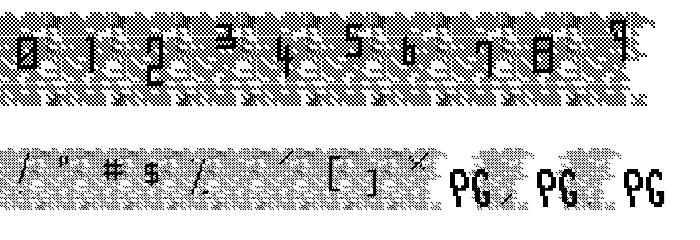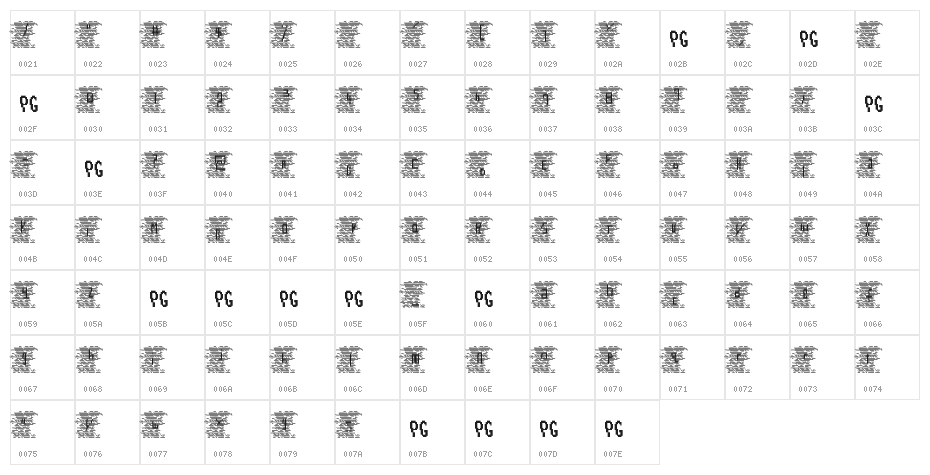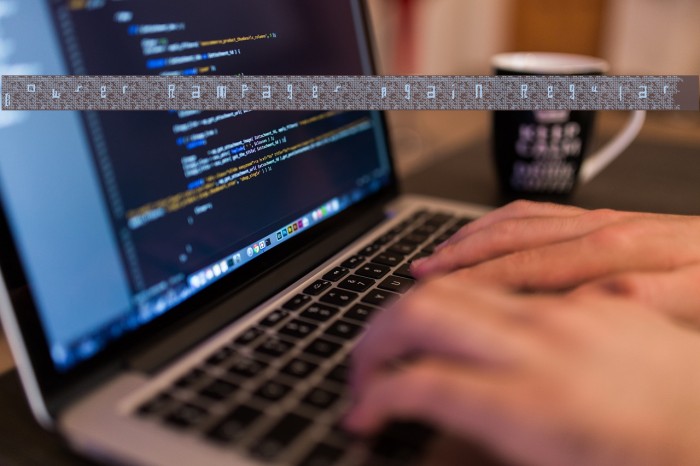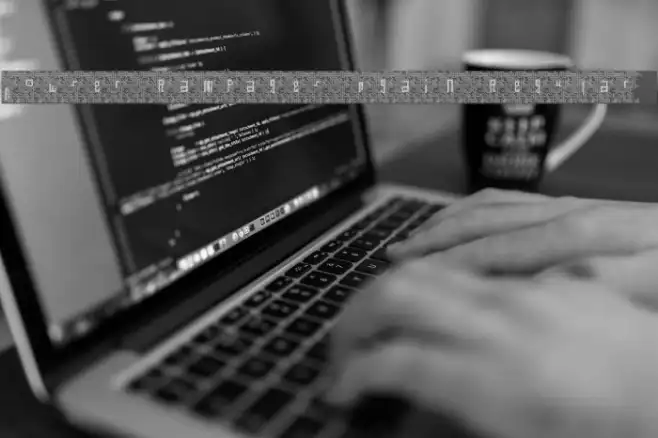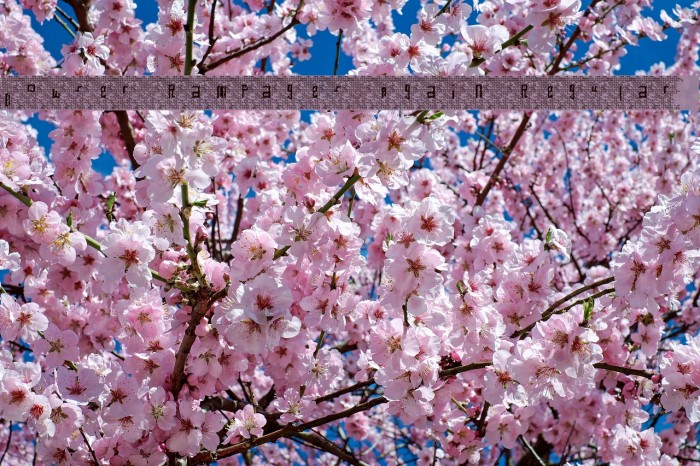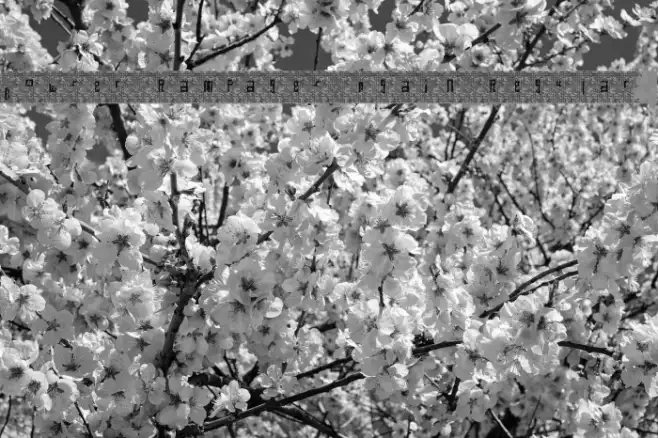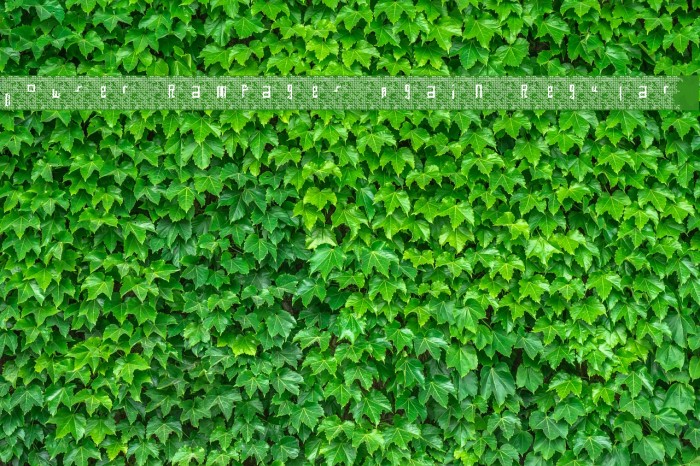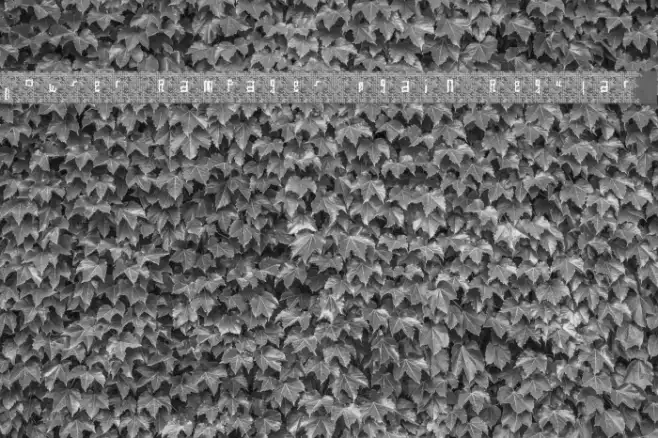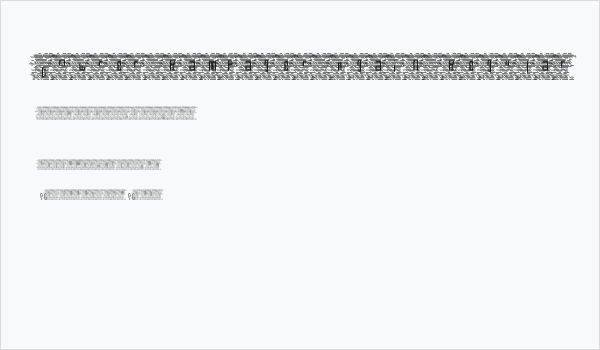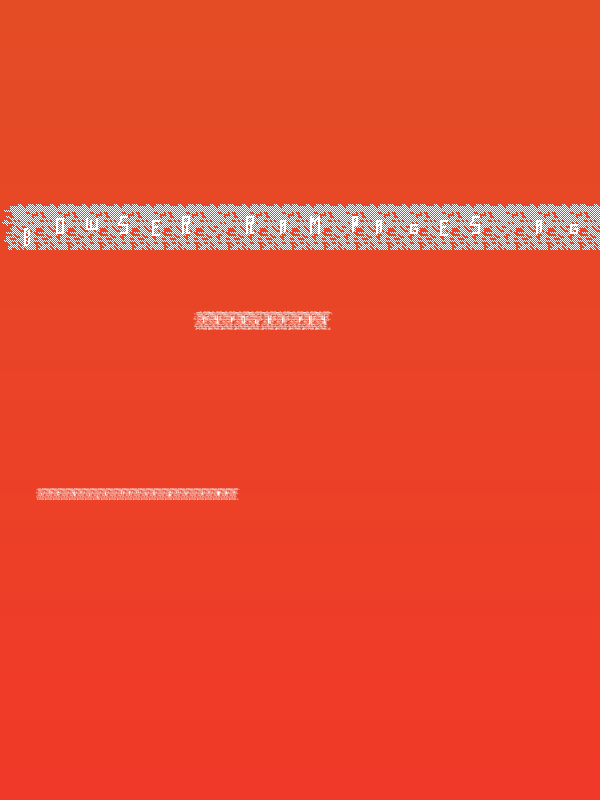
Bowser Rampages Again Regular Font
Bowser Rampages Again Regular Description
This font features a unique, pixelated design reminiscent of classic video game graphics. Each character is composed of blocky, square pixels that give it a retro, digital aesthetic. The uppercase and lowercase letters maintain a consistent height, with sharp angles and straight lines defining their shapes. Numbers and special characters follow the same pixelated style, ensuring a cohesive look across all elements. The font's distinct appearance makes it ideal for projects that aim to evoke nostalgia or a vintage gaming vibe.
| Proposed Projects | Ideal for video game design, retro-themed posters, digital art projects, and nostalgic branding. |